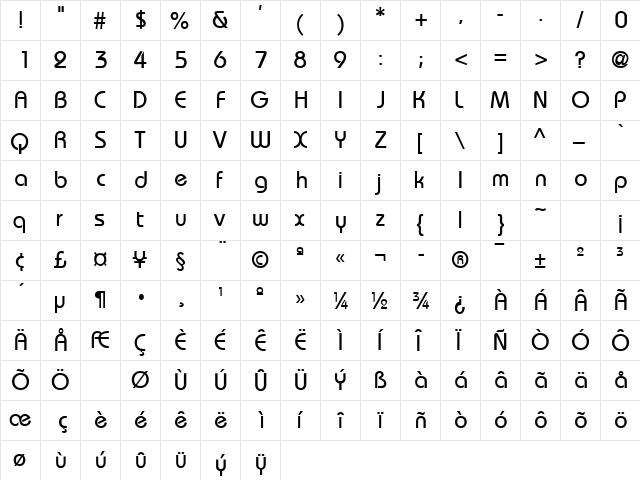
MumboSSK Regular
Design Context for MumboSSK Typeface
MumboSSK offers clean, dependable letterforms without strong stylistic allegiance, making it a practical choice for designers who need flexibility.